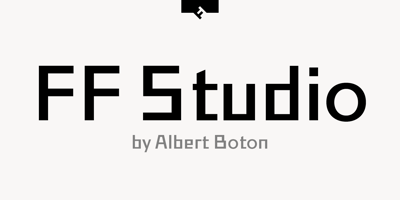
FF Studio
FF Studio font
FF Studio Font Family was designed by Albert Boton and published by FontFont. FF Studio contains 1 styles and family package options. French type designer Albert Boton created this display FontFont in 2002. The font is ideally suited for advertising and packaging, music and nightlife as well as sports. FF Studio provides advanced typographical support with features such as ligatures, alternate characters, and case-sensitive forms. It comes with proportional lining and proportional oldstyle figures.